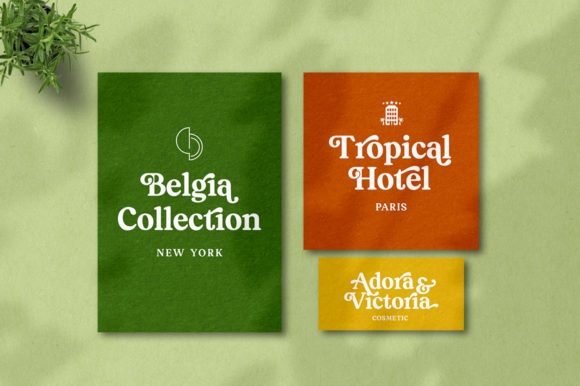
South Belgian Font
South Belgian is a smooth vintage serif font packaged in a classy style. This font is PUA encoded which means you can access all of the glyphs and swashes with ease! It features a varying baseline, smooth lines, gorgeous glyphs and stunning alternates.
South Belgian looks stunning on branding projects, logo designs, packaging, magazine headings, advertising, postcards and much more!